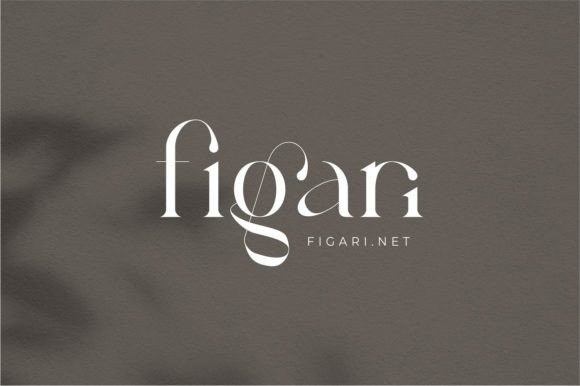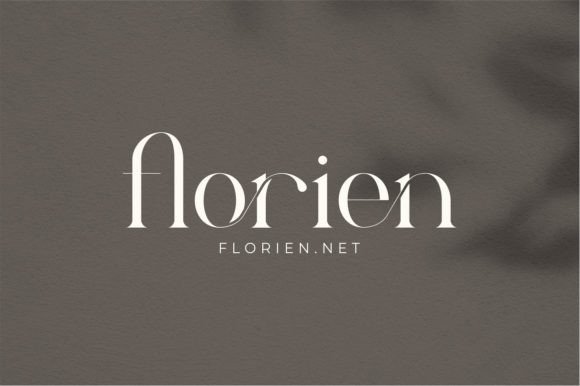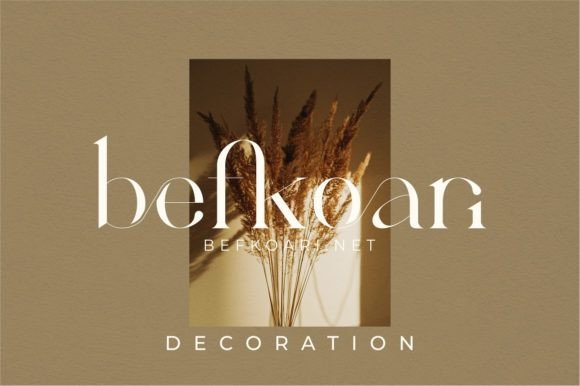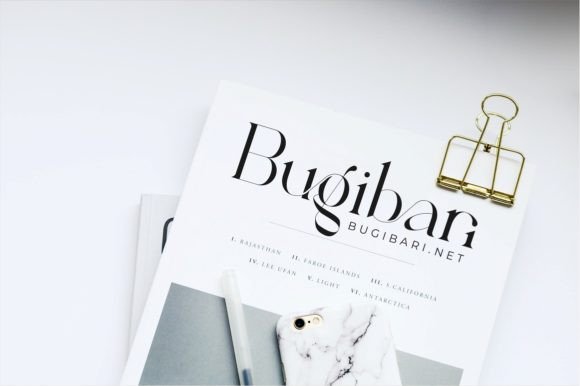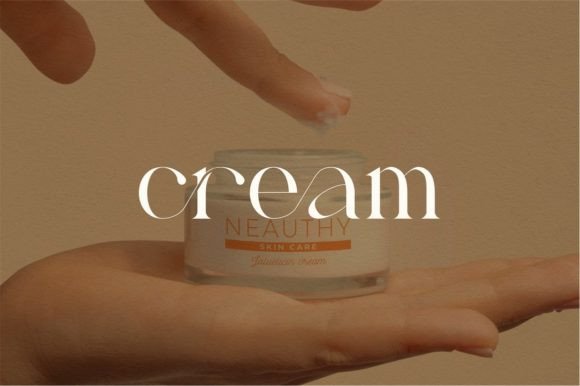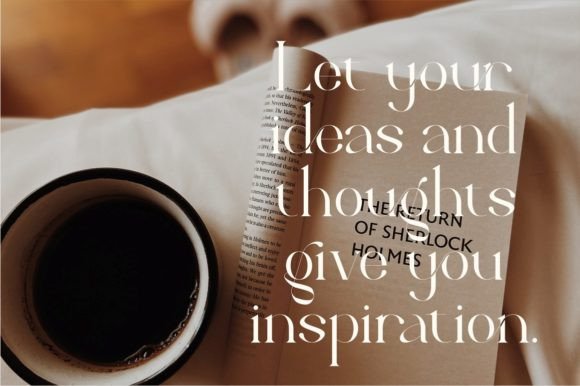
Introduction to Fragier Font
Fragier is a unique ligature serif font.
It comes with a modern style to become a market favorite It looks elegant, classy, ​​easy to read, stylish, attractive, and easy to use.
Key Features of Fragier Font